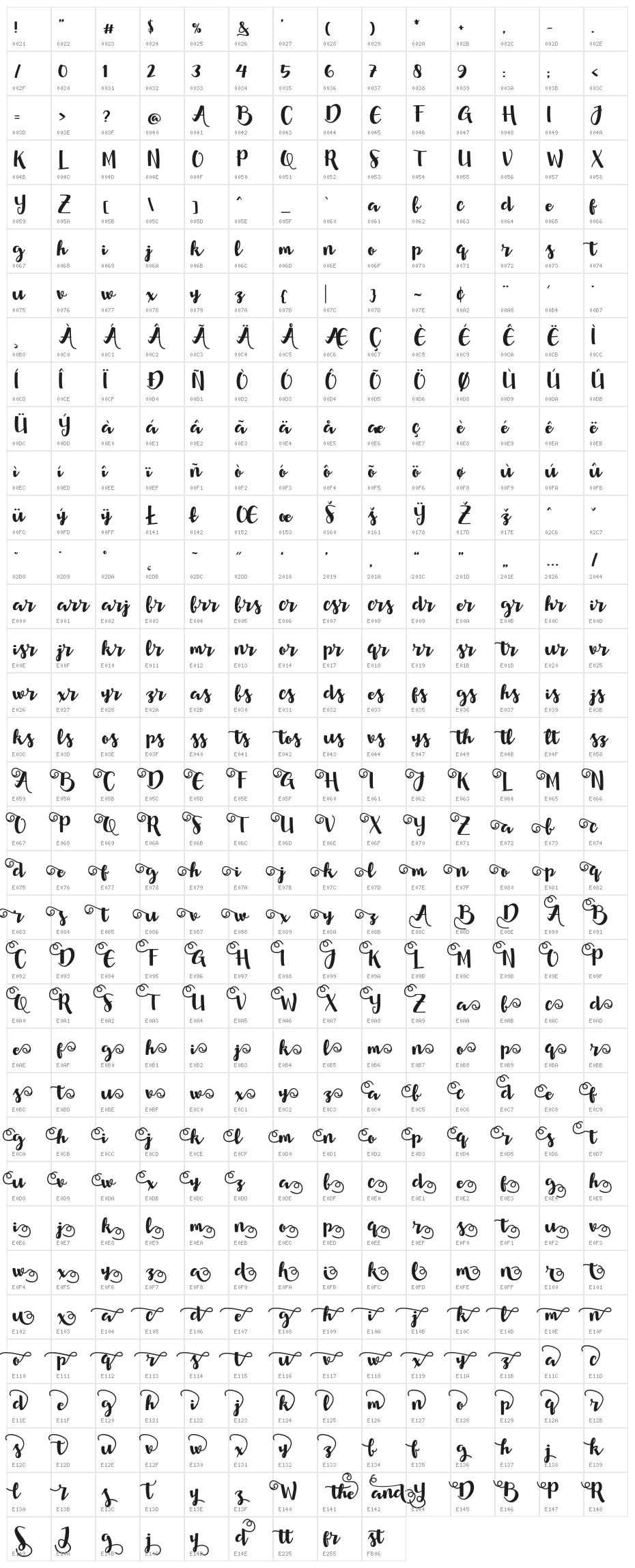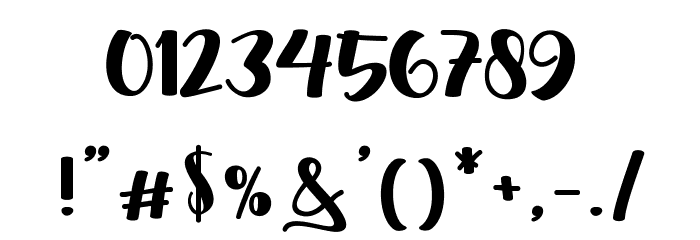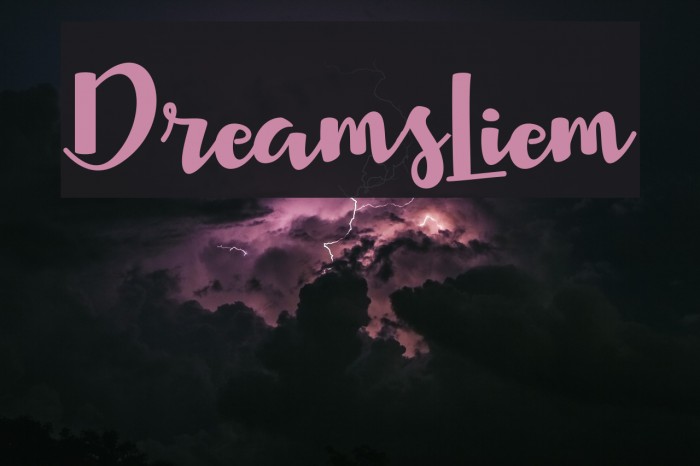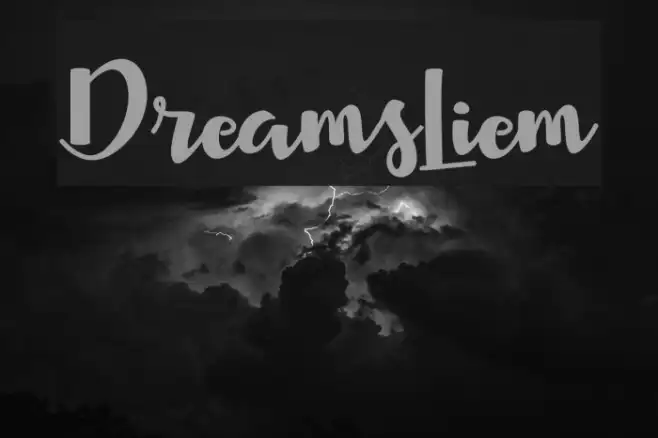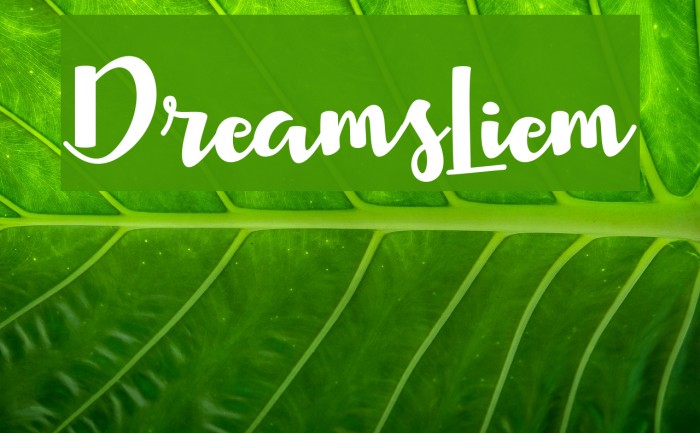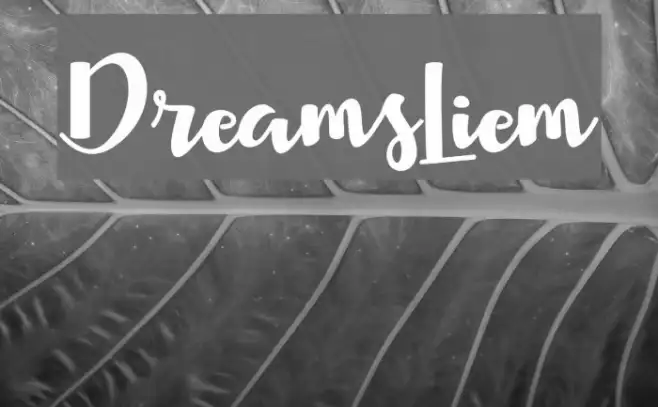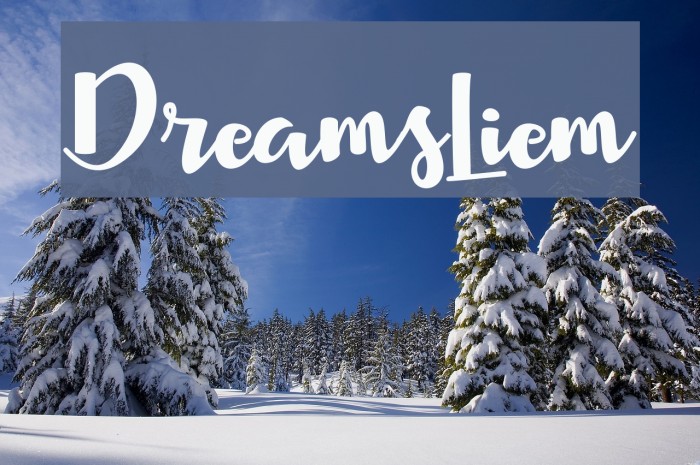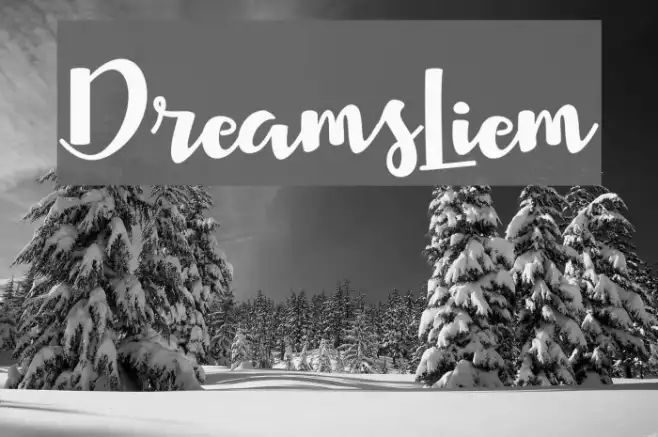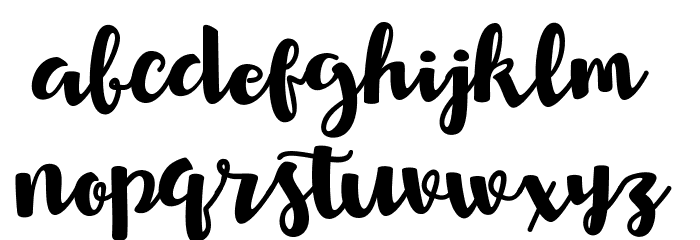
DreamsLiem Font
DreamsLiem Description
This font features a bold and expressive script style, characterized by its flowing and dynamic letterforms. The uppercase letters are particularly striking, with a playful yet elegant flair that adds a sense of movement and energy. The lowercase letters maintain this fluidity, offering a harmonious blend of curves and loops that enhance readability while retaining a decorative touch. The numerals are consistent with the overall style, providing a cohesive look across all characters. Special characters are thoughtfully designed to match the font's aesthetic, making it versatile for various design needs.
| Proposed Projects | Ideal for branding, invitations, greeting cards, and social media graphics. |